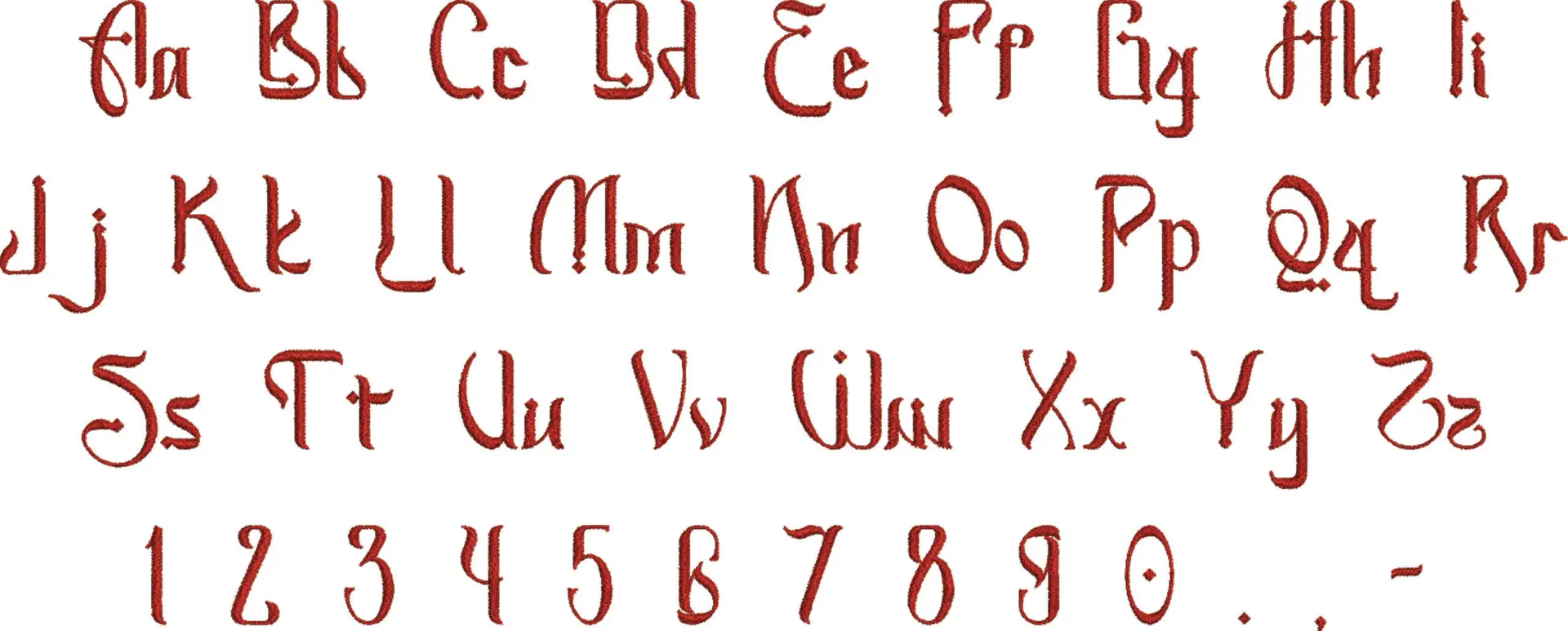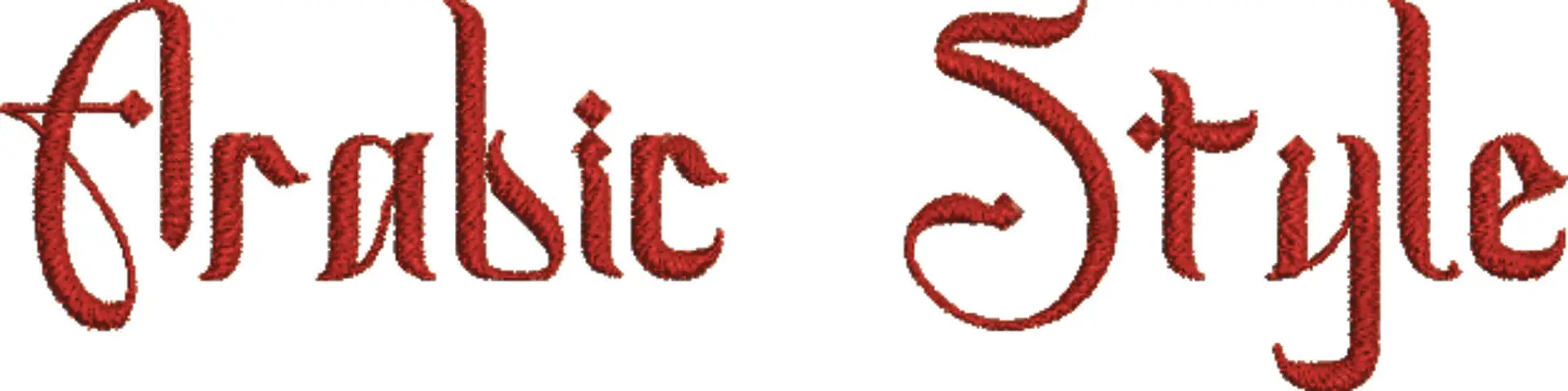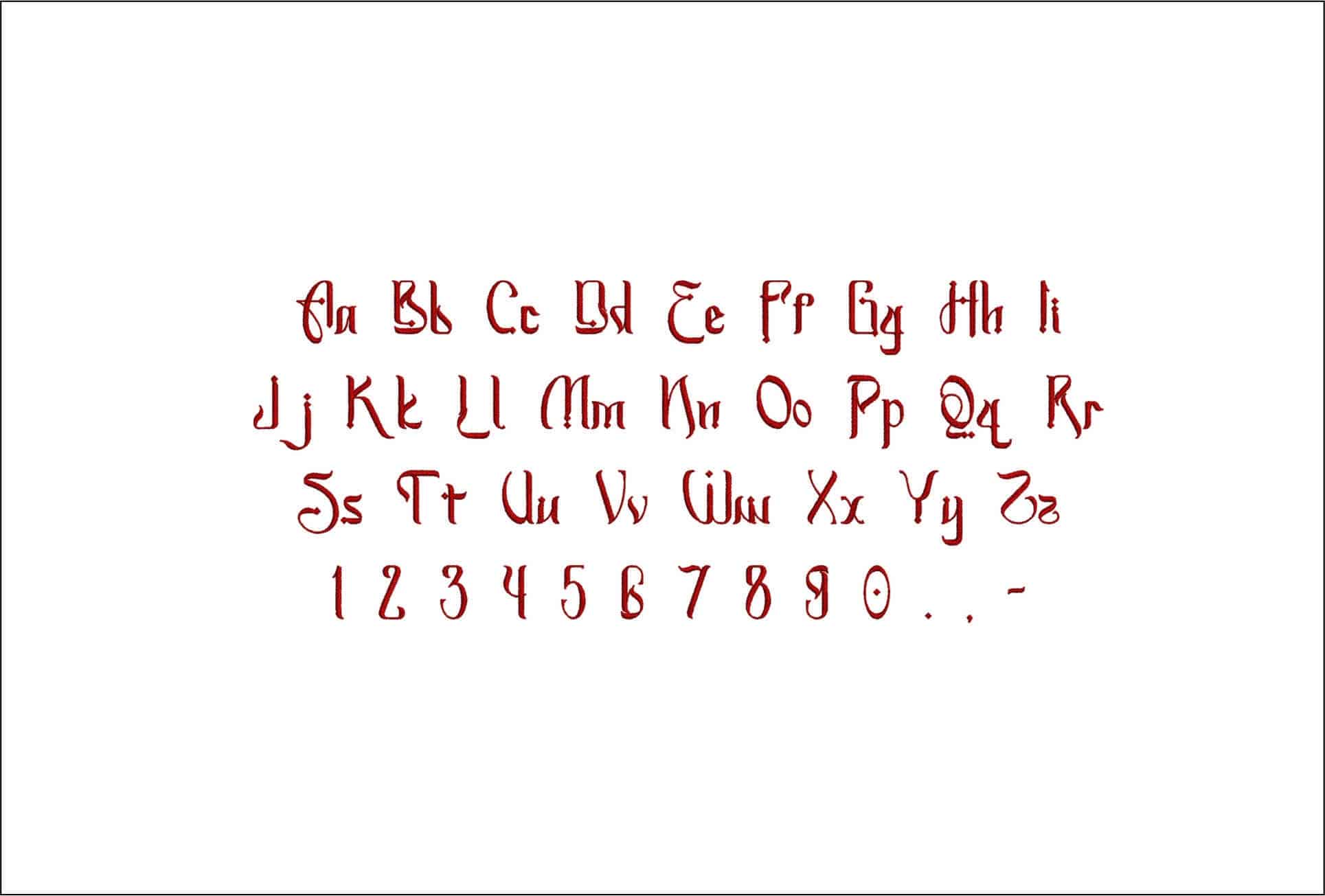
An elegant Arabic-style embroidery font with flowing red calligraphy that gives names, monograms and wording a more decorative finish.
Add ornate lettering to names, monograms and custom wording with this Arabic-style embroidery font set. The letterforms have a decorative calligraphic look, shown in red, with clear uppercase and lowercase characters, numbers and punctuation so your stitching keeps the same style from initials to full words. It suits embroiderers who want a more formal, flowing alphabet than a plain block font.
This style looks especially strong on robe fronts, prayer covers, keepsake towels, cushion covers and the back yoke of a shirt or abaya-style garment. The sweeping shapes give personalisation a dressed-up feel, whether you are stitching a single monogram or a longer name. Because the characters are visibly ornamental, they work best where the lettering is meant to be noticed rather than tucked away as tiny utility text.